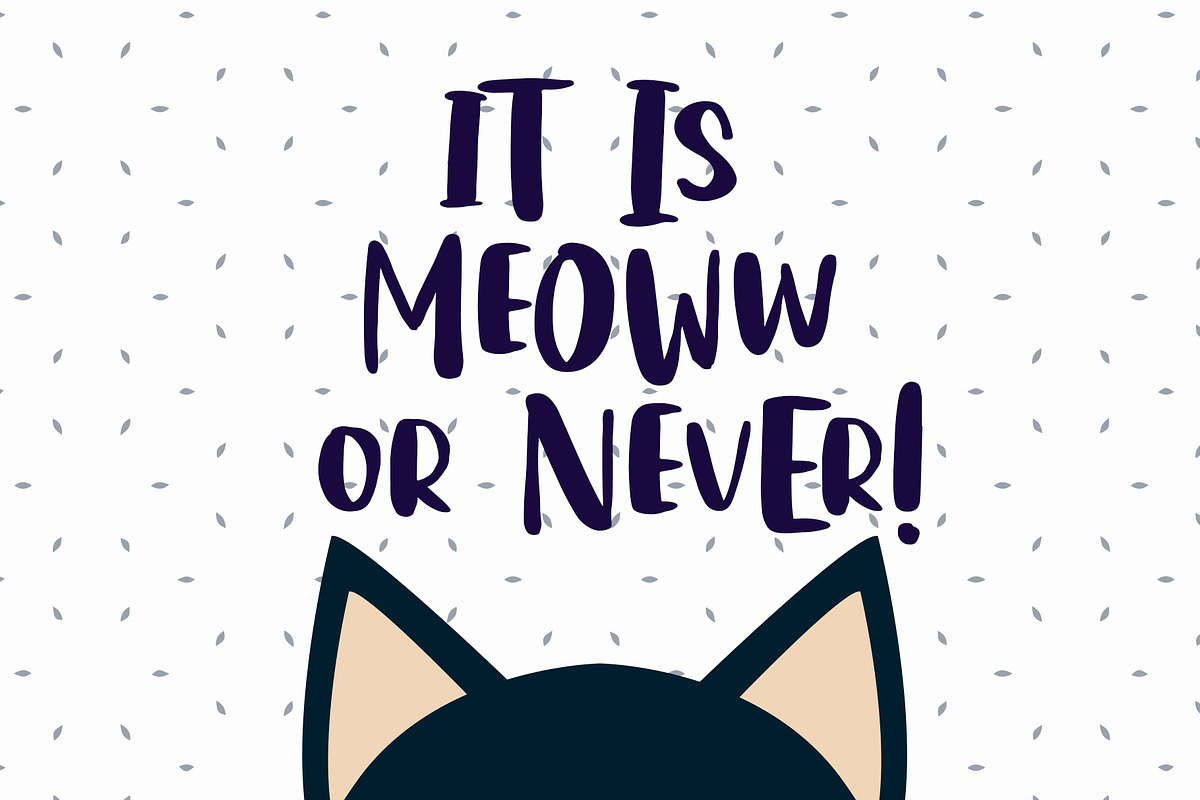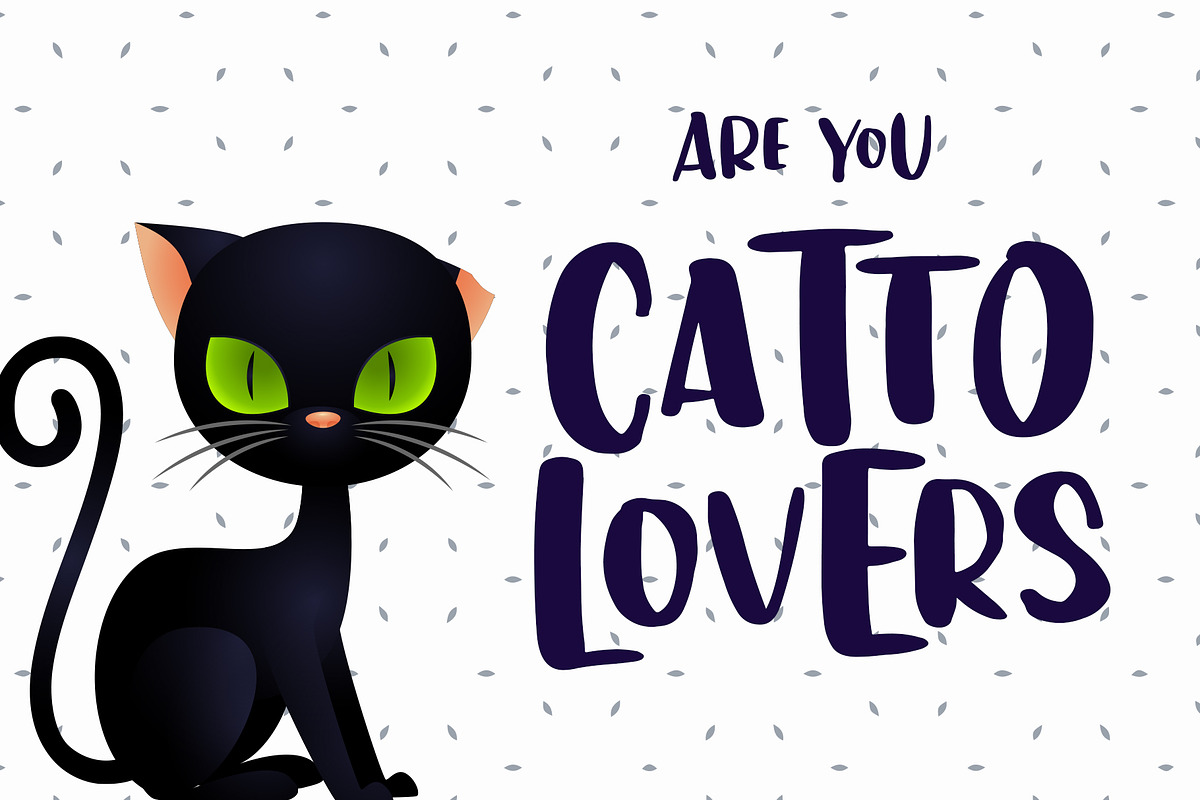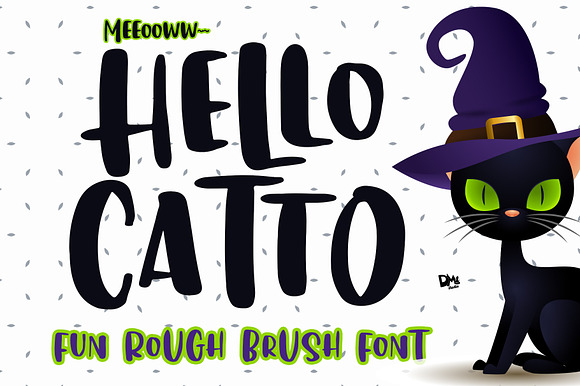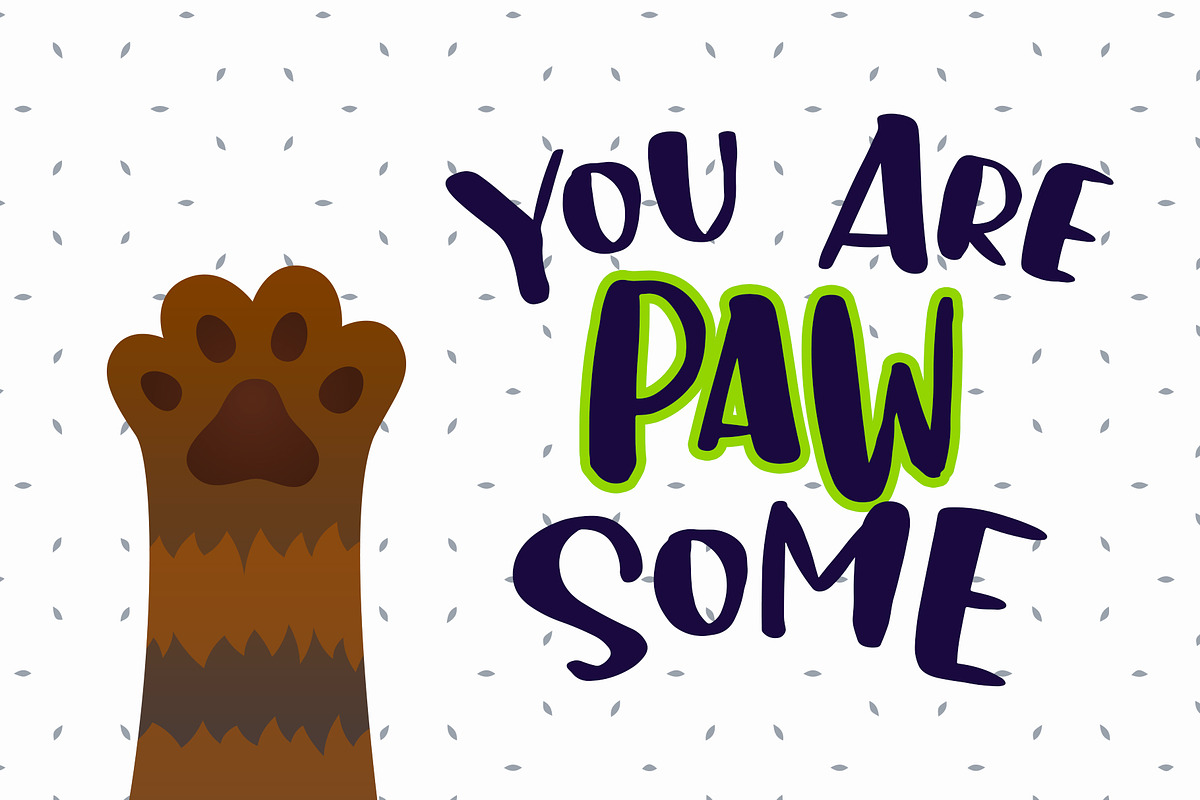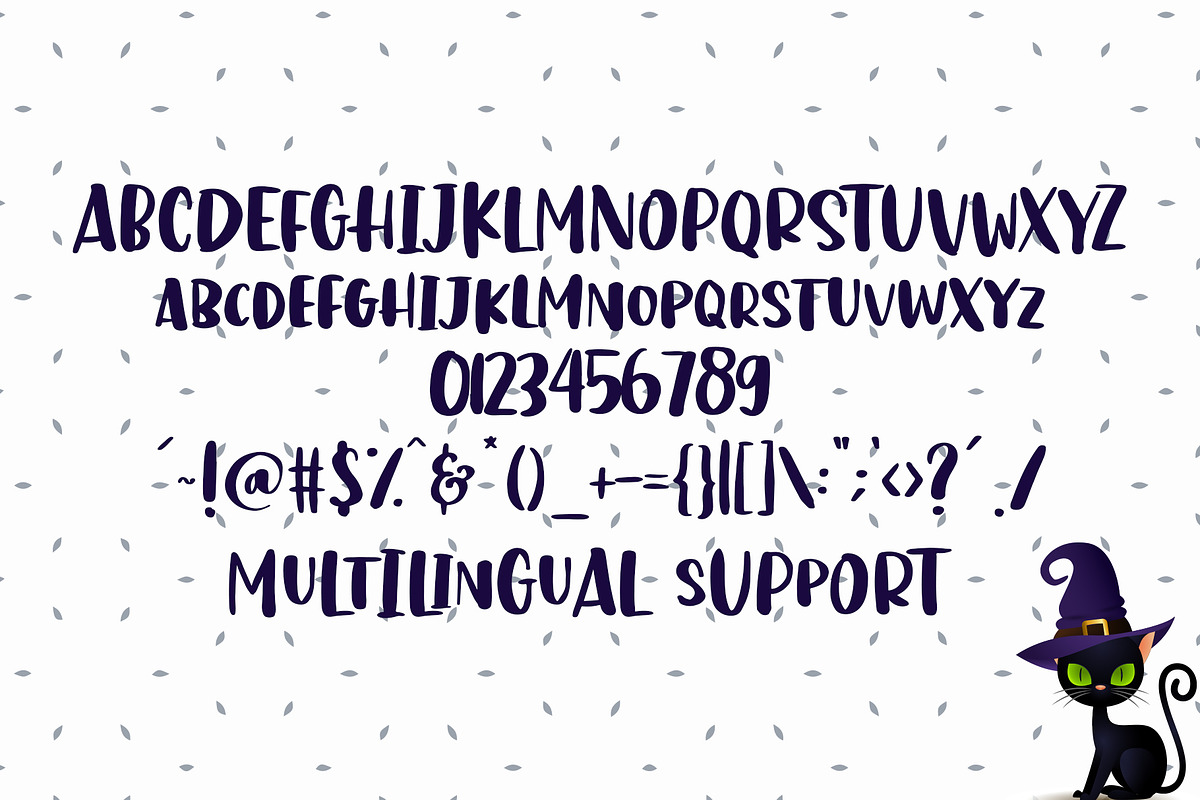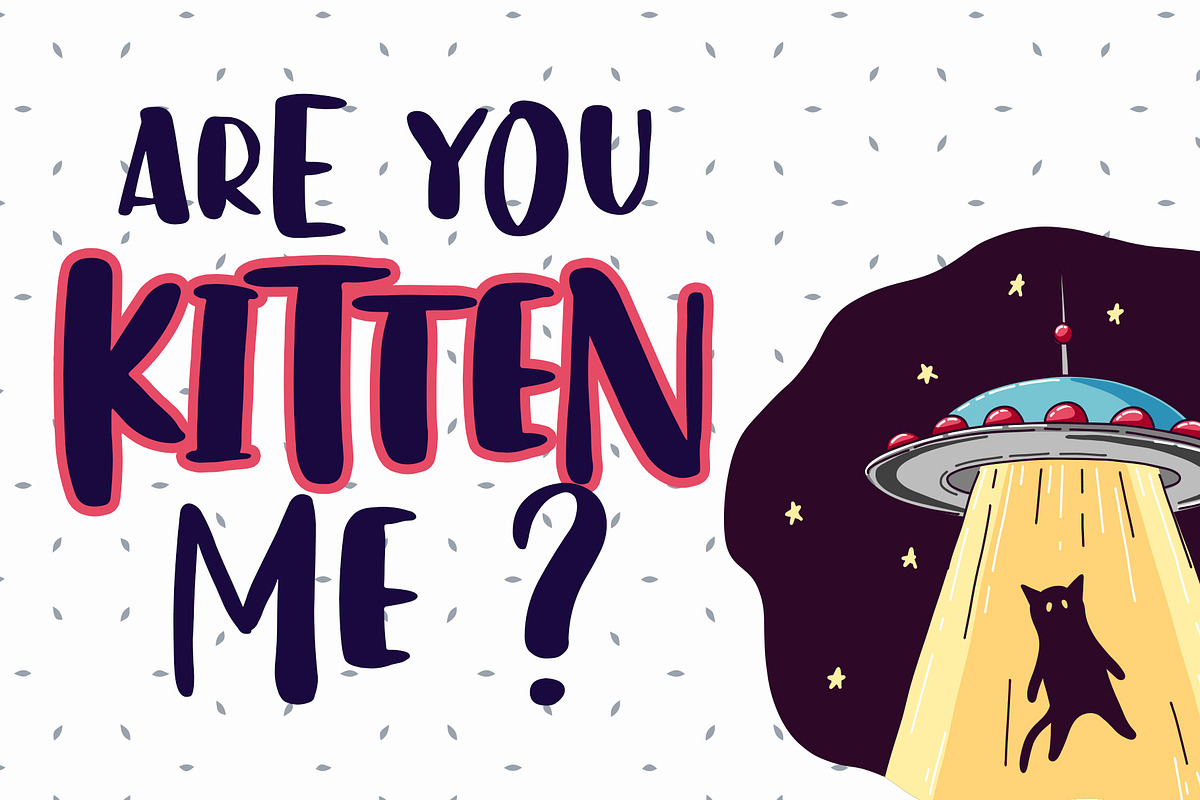
Hello Catto - Fun Rough Brush Font
Hello Catto is fun, bold, and rough handwritten brush font. Make your charming crafts with this fun font!
All in CAPS with 2 height (Activate the Capslock to access)
- All in CAPS with 2 height (Activate the Capslock to access)
- Multilingual